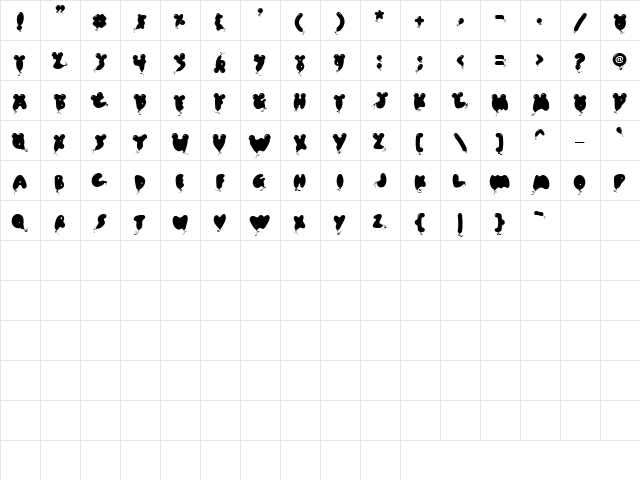
LD Helium Ears Regular Font Preview
LD Helium Ears Regular
Design Context for LD Helium Ears Typeface
LD Helium Ears is a composed and adaptable typeface that performs quietly and consistently across a wide range of design contexts.